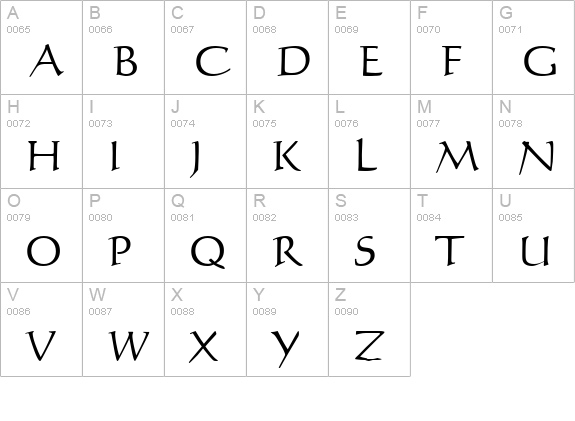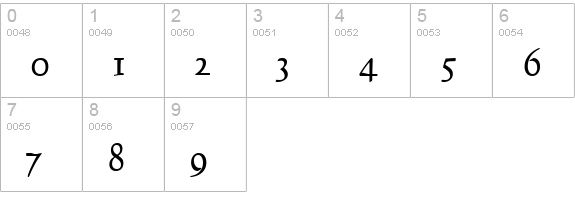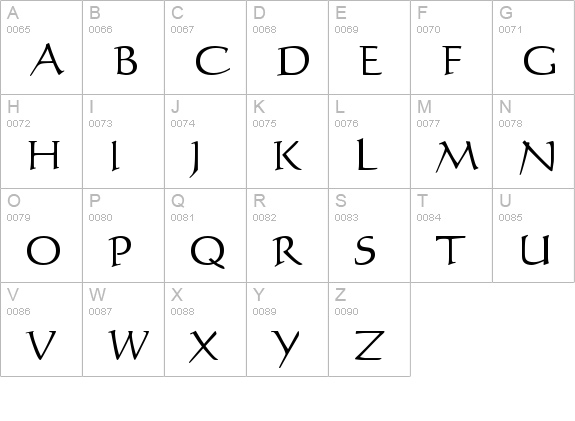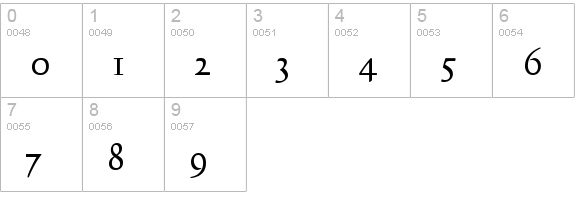
Calli 109 Normal is the standard, neutral variant in the Calli typeface family \xE2\x80\x94 well suited to general body text, paragraphs, and standard typographic work.
Calli 109 Normal font is a beautiful and elegant typeface that is perfect for a wide range of design projects. With its classic and sophisticated style, this font is sure to add a touch of sophistication to any design. Whether you're working on a wedding invitation, a business card, or a logo, Calli 109 Normal font is a versatile choice that will make your project stand out. Best of all, Calli 109 Normal font is freely available to download at FontsMarket.com. This means that you can start using this stunning font in your projects right away, without having to worry about any licensing fees or restrictions. So why wait? Download Calli 109 Normal font today and take your designs to the next level!